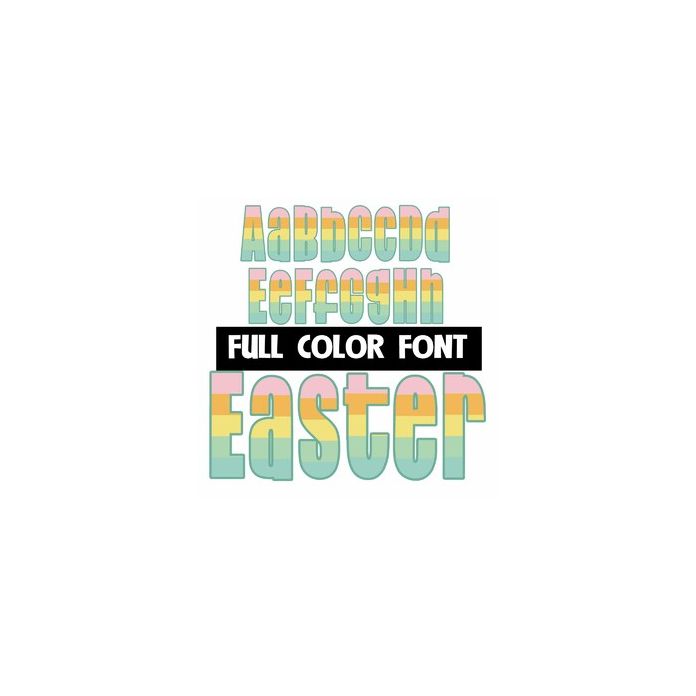
This full-color font features a stripe of pastels. This font works best for titles, displays, posters and more. Please note color fonts will show as black in non compatible programs. This font type is compatible with Silhouette Studio.